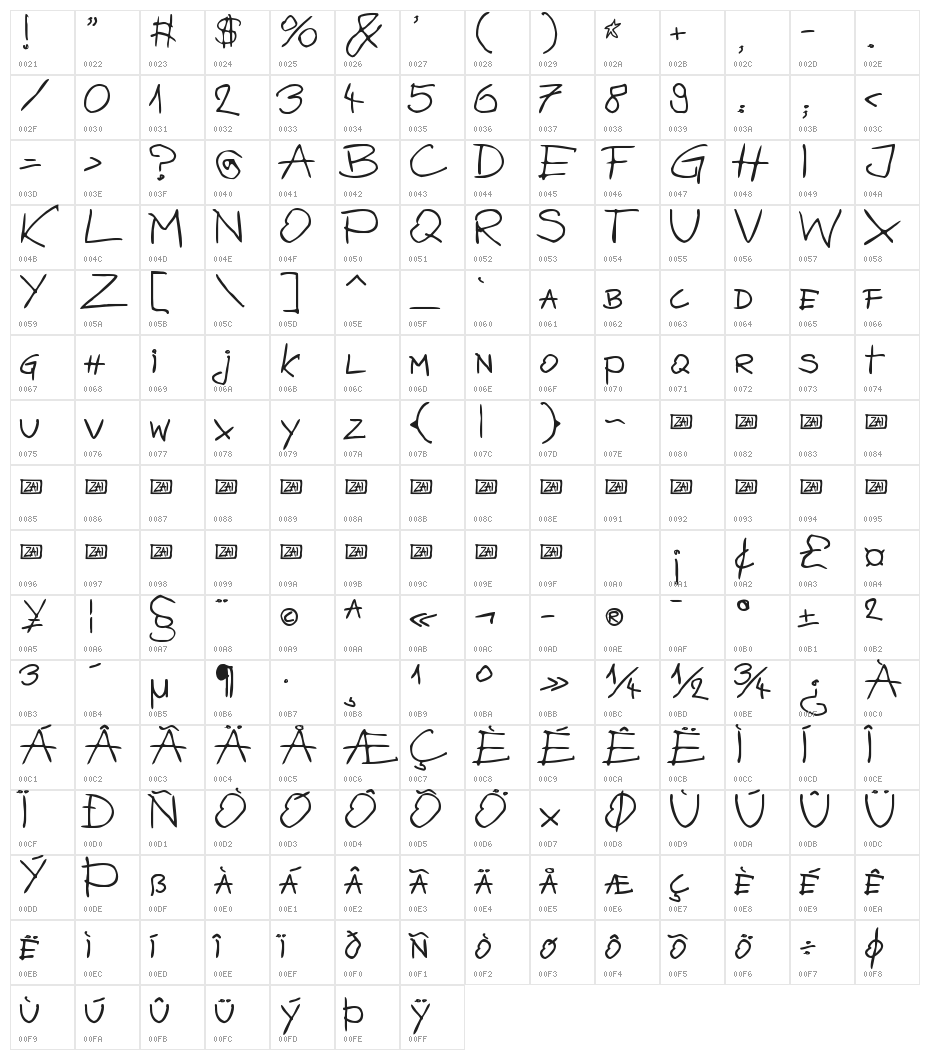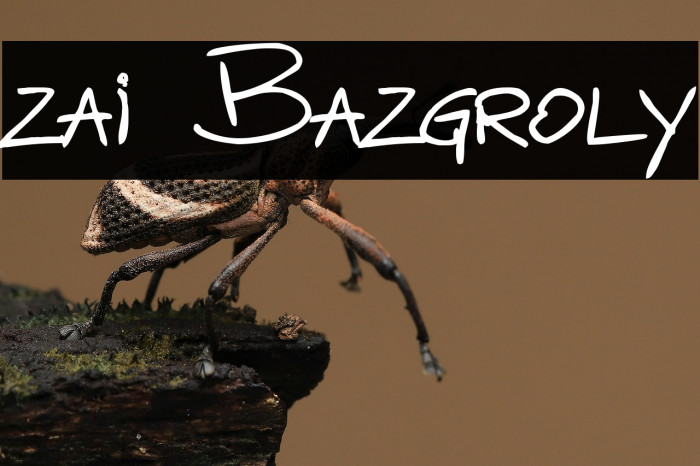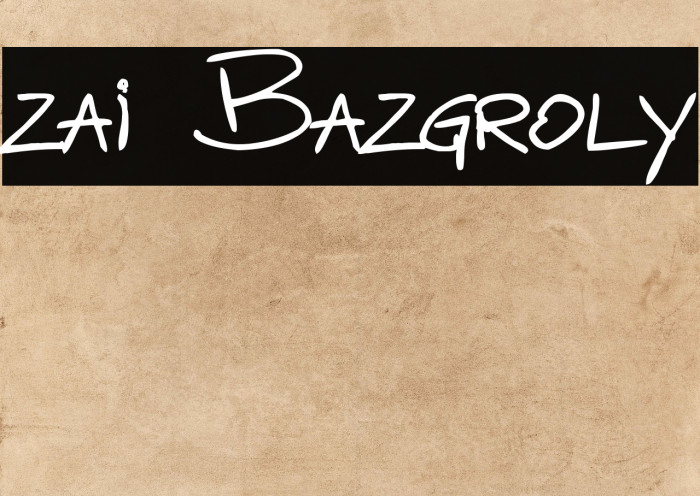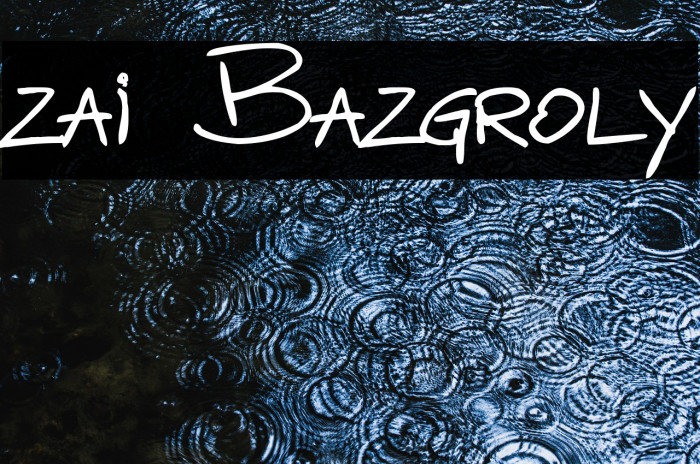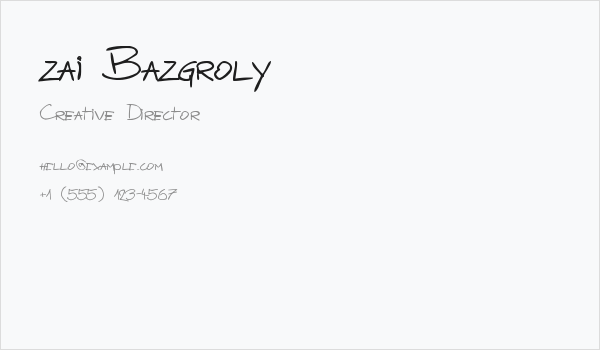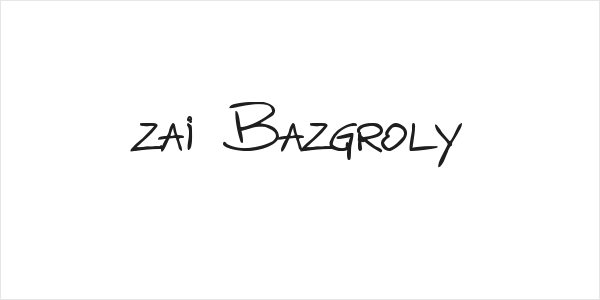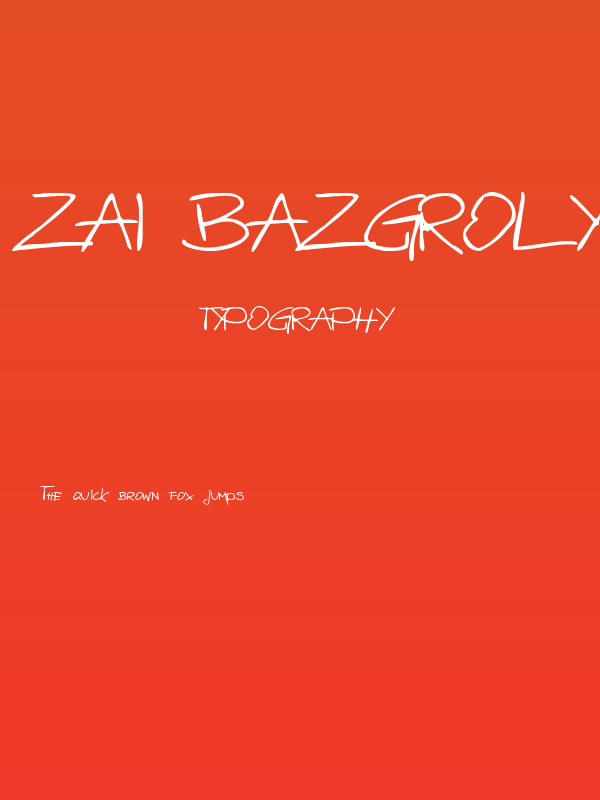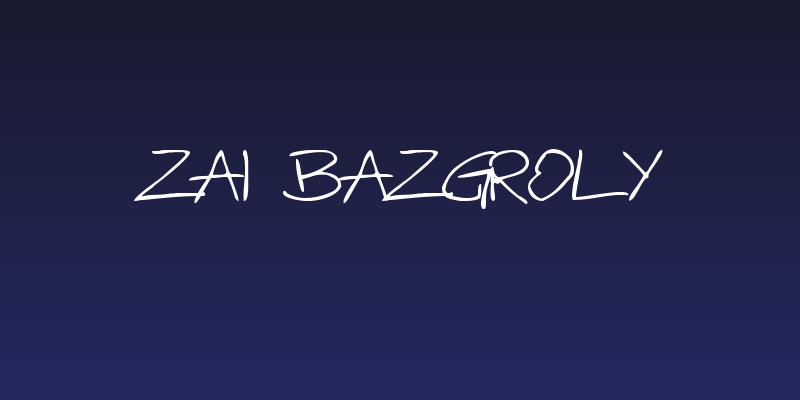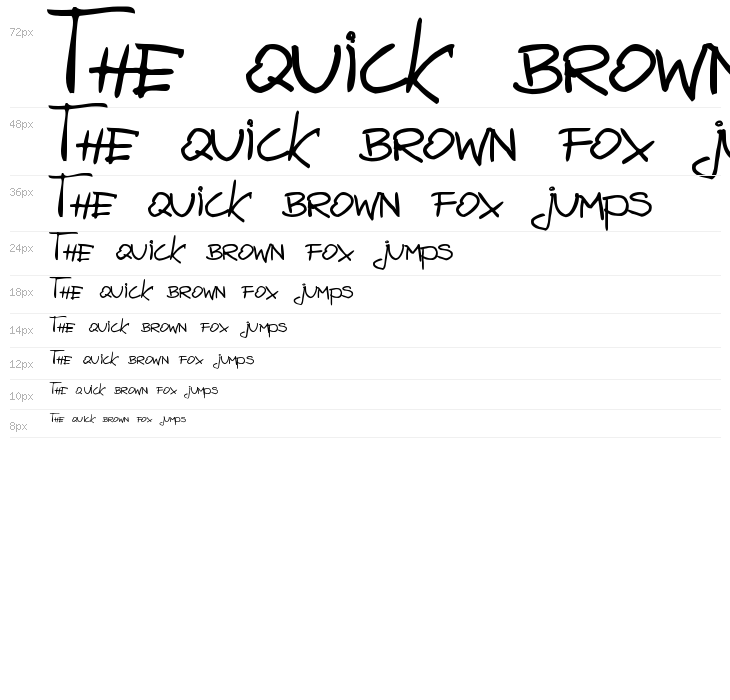
zai Bazgroly Font
zai Bazgroly Description
This font exudes a playful and informal vibe, characterized by its hand-drawn, graffiti-like appearance. The letters are irregular and dynamic, with varying stroke thickness that adds a sense of spontaneity and energy. The uppercase and lowercase letters maintain a consistent style, with exaggerated curves and angles that give the font a unique personality. The numerals and special characters follow the same aesthetic, ensuring a cohesive look across all text elements. This font is perfect for projects that require a casual, artistic touch, such as posters, flyers, or creative branding materials.
| Proposed Projects | Ideal for posters, flyers, creative branding, and any project needing a casual, artistic touch. |